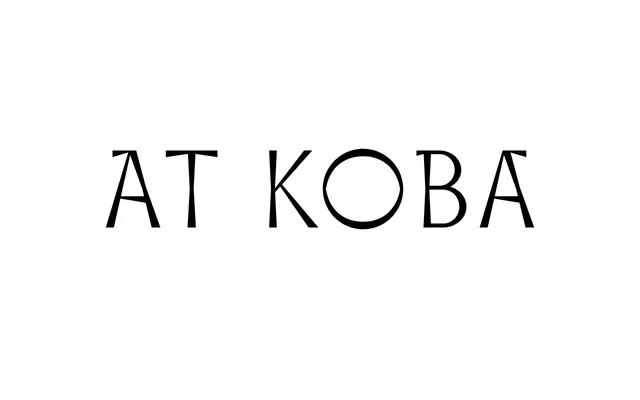
At Koba
Arillatype · Jon Zabalegui · 2024
At Koba specimen from Arillatype
A single-weight capitalis monumentalis drawn from Basque stone-engraving traditions, designed by calligrapher Jon Zabalegui and released in 2024.
Rooted in the cemetery and house-front letterings of the Basque Pyrenees, the design takes the capitalis monumentalis form and brings it into contemporary use via calligraphic hand rather than mechanical interpretation. The family ships with discretionary ligatures, contextual alternates, stylistic alternates and ordinals, with particular attention paid to historical monogram forms. A single Regular weight serves branding, packaging and editorial contexts where regional character and engraved authority are the point.
Modelled on capitalis monumentalis engraving traditions specific to the Basque Country, with calligraphic origins and monogram references drawn from regional stone lettering. Sits firmly in the display category due to its single weight and ornamental character.